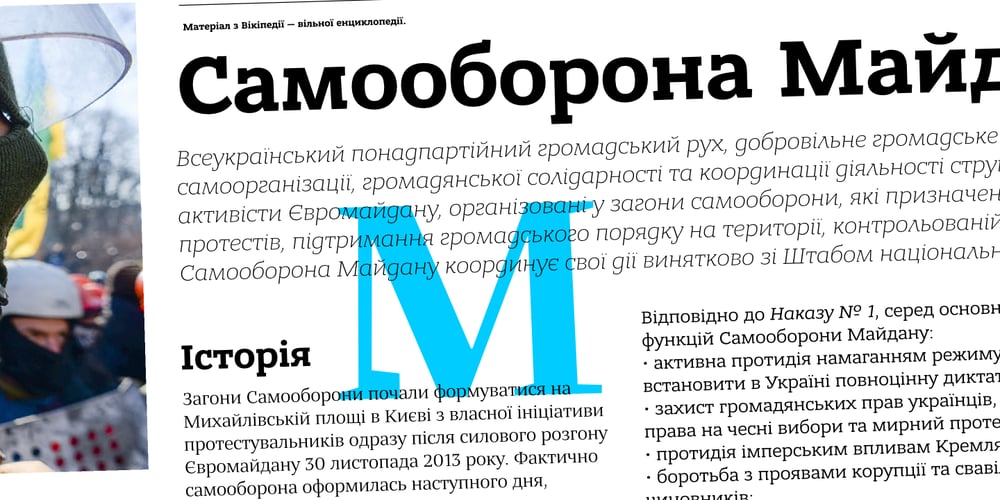
Bandera Text Cyrillic
Bandera Text Cyrillic font
Bandera Text Cyrillic Font Family was designed by Andrij Shevchenko and published by AndrijType. Bandera Text Cyrillic contains 12 styles and family package options. This serif typeface is a real workhorse. It is a modern tool for text design: extremely legible and well shaped. Bandera Text Cyrillic has six weights with original italics. It catches attention in headlines of posters and magazines or makes reading comfortable in plain texts. Don’t forget try Medium and Medium Italic faces for free. Bandera Text Cyrillic works well with Bandera Cyrillic (slab serif), Osnova Cyrillic (sans serif) and Bandera Display Cyrillic (contrast serif) fonts. Bandera is Spanish for ‘flag’. And Bandera is a symbol of Ukrainian fighting for freedom for many years.